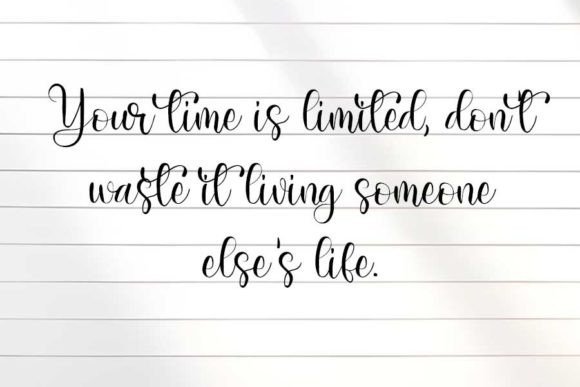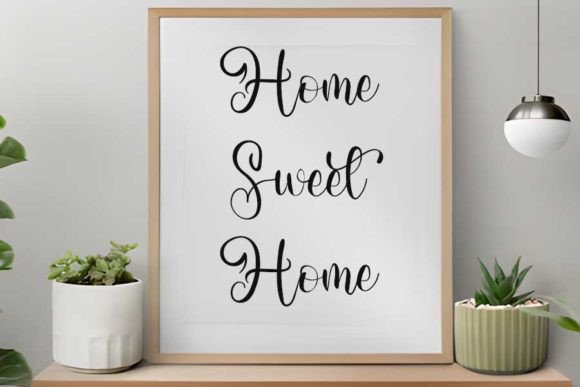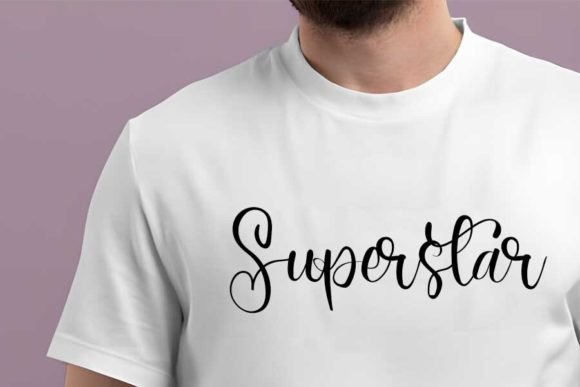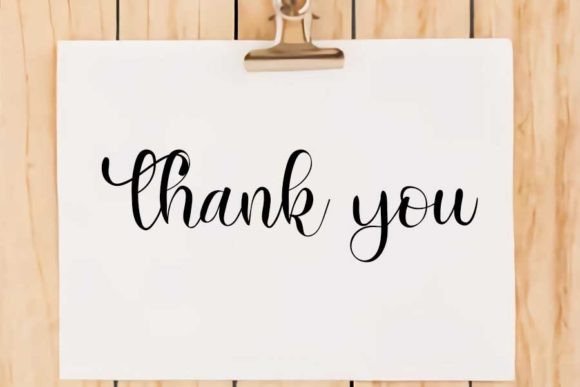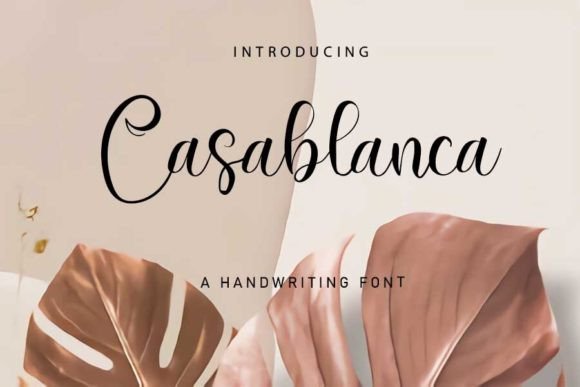
Casablanca Font: Elevate Your Designs with Elegance and Sophistication
In the world of typography, a font can make or break the aesthetic of a design. For those seeking a touch of elegance and sophistication, the Casablanca font is an exceptional choice. This modern and classy calligraphy font has been gaining popularity among designers and crafters for its beautiful ligatures, lovely alternates, and stunning stroke. In this article, we’ll dive into the details of the Casablanca font, exploring its features, uses, and benefits.
What is Casablanca Font?
Casablanca is a contemporary calligraphy font that exudes luxury and refinement. Its elegant strokes and fluid connections make it perfect for designs that require a high level of sophistication. The font comes with a range of beautiful ligatures and alternates, allowing designers to add a personal touch to their work.
Key Features of Casablanca Font
- Beautiful Ligatures: Casablanca font features stunning ligatures that seamlessly connect letters, creating a beautiful flow of text.
- Lovely Alternates: The font includes a range of alternate characters, allowing designers to add variety and uniqueness to their designs.
- Elegant Stroke: The Casablanca font boasts a very beautiful stroke, making it perfect for designs that require a touch of elegance.
Uses of Casablanca Font
Casablanca font is versatile and can be used for a variety of design projects, including:
- Wedding Invitations: The font’s elegant and sophisticated style makes it perfect for wedding invitations, adding a touch of luxury to your designs.
- Fashion Cards: Casablanca font is ideal for fashion cards, product labels, and branding materials, helping to create a high-end look.
- Stationery: The font can be used for designing stationery, such as letterheads, business cards, and envelopes.
- Digital Designs: Casablanca font can be used for digital designs, including social media graphics, blog headers, and website titles.
Benefits of Using Casablanca Font
Using the Casablanca font in your designs offers several benefits:
- Unique and Elegant Look: The font’s modern and classy style helps to create a unique and elegant look that sets your designs apart.
- High Versatility: Casablanca font can be used for a range of design projects, making it a valuable addition to your font library.
- Easy to Read: The font’s clear and flowing strokes make it easy to read, even at small sizes.
Tips for Using Casablanca Font
To get the most out of the Casablanca font, follow these tips:
- Use it Sparingly: Use the font sparingly to add emphasis to specific elements of your design.
- Experiment with Ligatures: Experiment with different ligatures and alternates to add variety to your designs.
- Pair it with Other Fonts: Pair the Casablanca font with other fonts to create a unique and visually appealing combination.
In conclusion, the Casablanca font is a stunning and elegant calligraphy font that can elevate your designs to new heights. Its beautiful ligatures, lovely alternates, and elegant stroke make it perfect for a range of design projects, from wedding invitations to fashion cards. With its high versatility, unique look, and ease of use, the Casablanca font is an excellent addition to any designer’s font library.
Whether you’re a designer, crafter, or DIY enthusiast, the Casablanca font is sure to inspire your creativity and help you create stunning designs that leave a lasting impression.